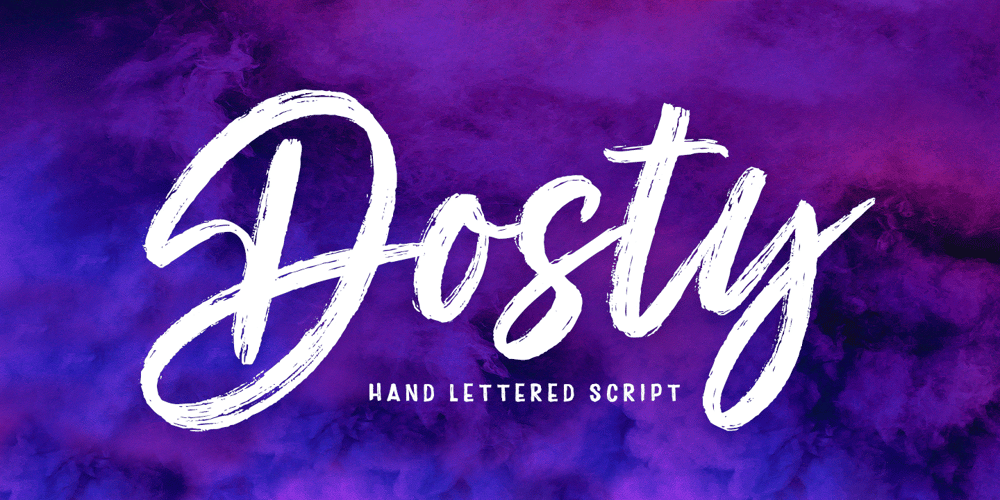
Dosty Font Family was designed by Mauli Zari and published by Dhan Studio. Dosty contains 2 styles and family package options. Dosty is a unique textured brush font because this brush font is made digitally. It’s a contemporary approach to design, and has underlines and also several ligatures.Suitable for use in title designs such as book tittles, stationery designs, quotes, branding, logos, clothing, invitations, greeting cards, t-shirts, packaging designs, posters and more.